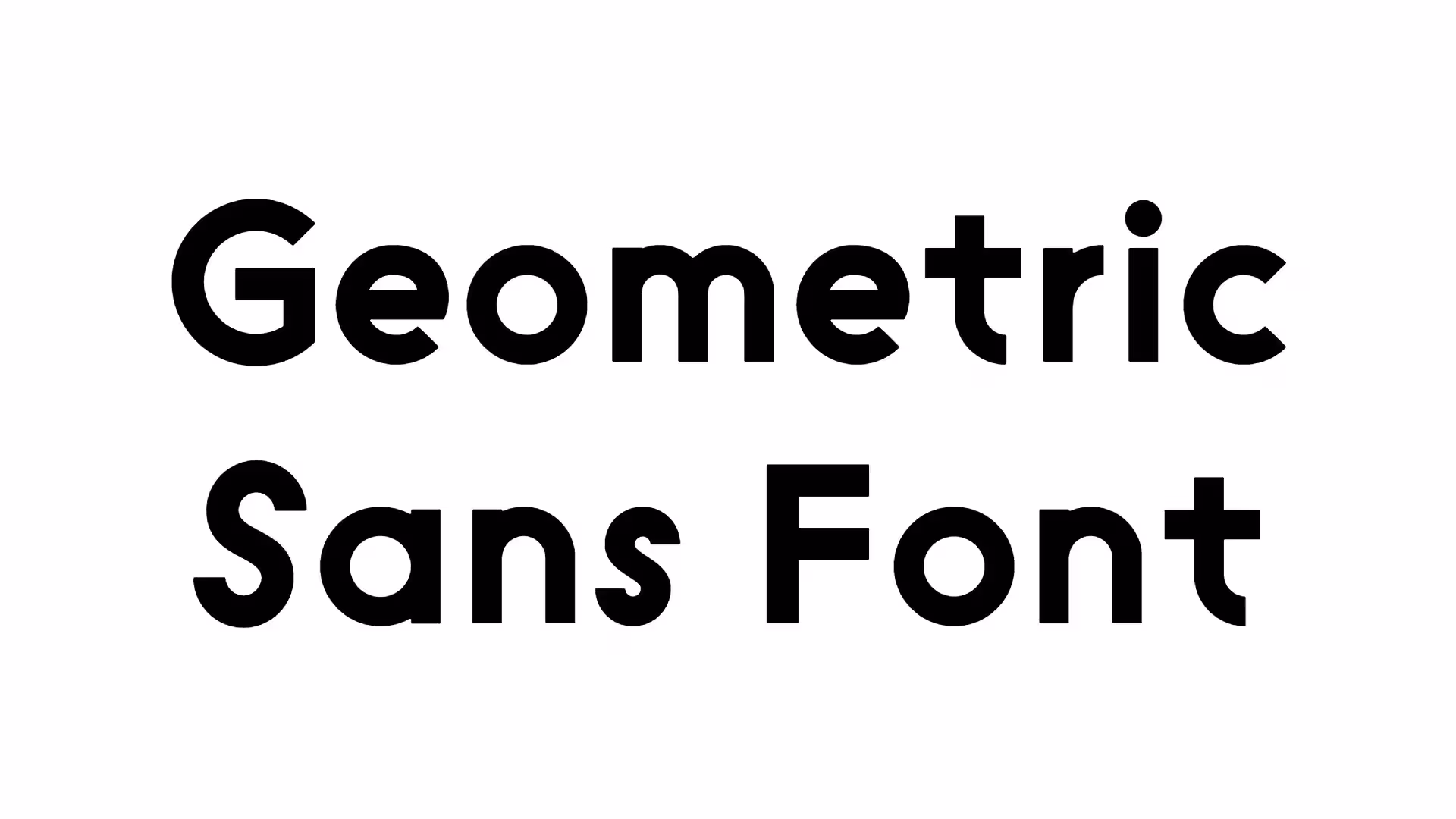
Geometric Sans-Serif fonts rely on simple geometric primitives like perfect circles, crisp squares, and sharp triangles. Embracing rigid symmetry, minimal stroke contrast, and a modern architectural structure, these typefaces discard the organic influences of handwritten calligraphy in favor of clean, mathematical precision.
Geometric Sans
Geometric Sans is a sans serif font designed by Roman van Eyck and published by abstrkt. Simple, open letter shapes keep it easy to read at almost any size, from app buttons to big headlines. You can download it for free and test it with your own words in the preview above.
- Languages: English, plus Cyrillic characters
What You Can Type With Geometric Sans
Geometric Sans covers the full alphabet in upper and lowercase, plus all ten numbers, so you can set names, dates and prices without switching fonts. Common punctuation such as !, ?, # and $ is included as well. It doesn't include accented letters such as é or ñ, which makes it an English-only font. On top of that, it includes Cyrillic characters.
Where Geometric Sans Works Best
Designers usually reach for fonts like Geometric Sans when they're making websites, app screens and clean logos. It works for headings and body text alike. If the download has several weights, use a heavier one for titles and a lighter one for paragraphs.
Does Geometric Sans support accented letters?
No. Geometric Sans has no accented letters such as é, ñ or ü, so it's best for English text.